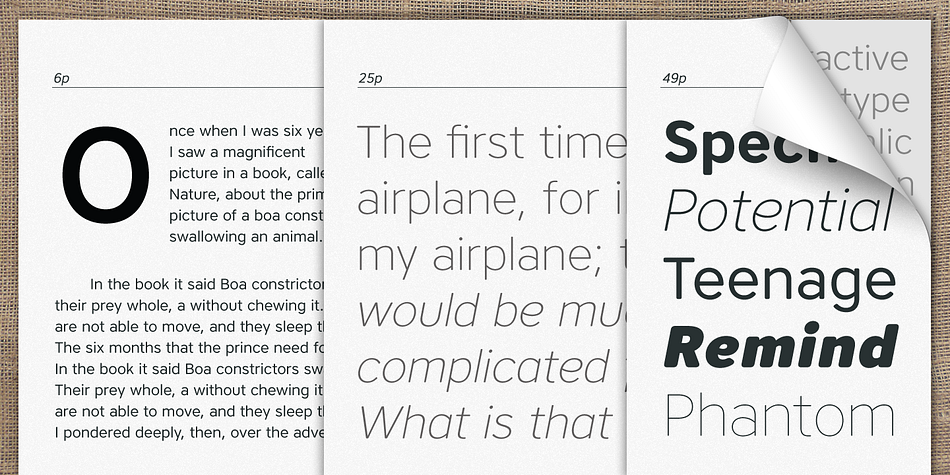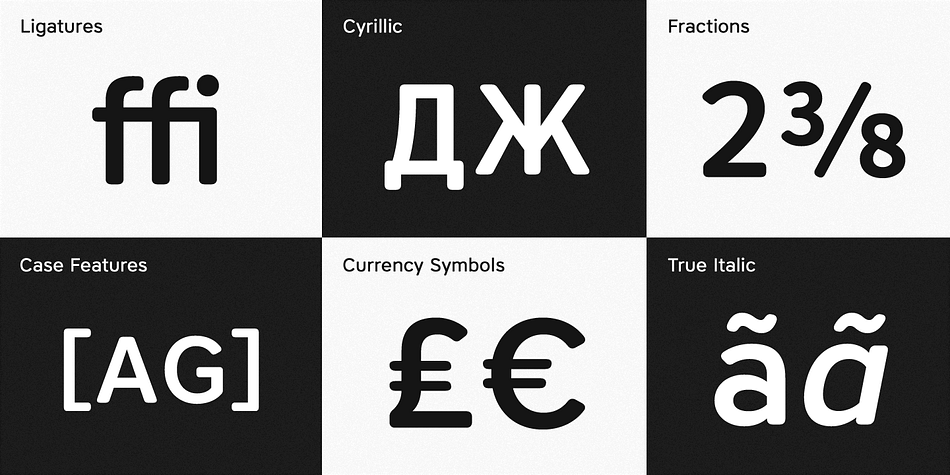
Core Sans AR
Core Sans AR is a sans serif font family. This typeface has sixteen styles and was published by S-Core.
It is a part of the Core Sans Series such as N, M, E, A, D, G, R, and B.
Letters in this type family are designed with genuine neo-grotesque and neutral shapes without any decorative distractions.
The spaces between individual letter forms are precisely adjusted to create the perfect typesetting.
Core Sans AR family consists of 8 weights (Thin, Extra Light, Light, Regular, Medium, Bold, Extra Bold, Heavy) with their corresponding italics.
Core Sans AR Family is a rounded version of Core Sans A that is clean, simple and highly readable. It is a part of the Core Sans Series such as N, M, E, A, D, G, R, and B.
Letters in this type family are designed with genuine neo-grotesque and neutral shapes without any decorative distractions. The spaces between individual letter forms are precisely adjusted to create the perfect typesetting.
Core Sans AR family consists of 8 weights (Thin, Extra Light, Light, Regular, Medium, Bold, Extra Bold, Heavy) with their corresponding italics.
Core Sans AR contains complete Basic Latin, Cyrillic, Central European, Turkish, Baltic character sets. Each font includes proportional figures, tabular figures, numerators, denominators, superscript, scientific inferiors, subscript, fractions and case features.
We highly recommend it for use in books, web pages, screen displays, and so on.